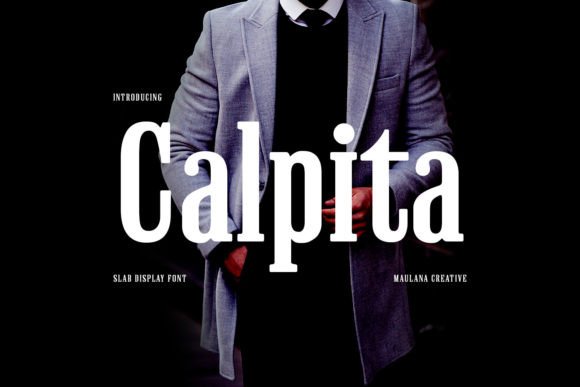
The Power of Calpita Font: Elevate Your Designs with Style
I’ll never forget the time I was working on a project for a trendy boutique hotel, and I just couldn’t find the right font to capture their edgy-chic vibe. The client wanted something that would make a statement, but still convey a sense of sophistication. That’s when I stumbled upon Calpita Font, and it completely transformed my design. With its striking, angular strokes and sharp edges, Calpita instantly added a level of depth and modernity to my project that I’d been struggling to achieve.
An Honest Review of Calpita Font
- ✨ Unique and distinctive style that’s sure to turn heads
- ✅ Perfect for making a statement in headlines, posters, and other graphic design projects
- 💥 Adds a sense of modernity and energy to any design
- 🎨 Highly versatile and can be used in a variety of creative projects
While Calpita Font is an amazing addition to any design project, there are a few things to keep in mind. 🤔 For example, the font’s bold style can be a bit overwhelming if not used judiciously. Additionally, some of the more intricate design elements may not render as well at smaller font sizes. ⚠️ However, these limitations are relatively minor and can be easily worked around with a little creativity.
The Backstory Behind Calpita Font
Calpita Font was designed with the modern designer in mind. Its creator, a talented typographer, wanted to craft a font that would be both stylish and attention-grabbing. Inspired by the urban landscape and the world of contemporary art, Calpita Font was born. With its bold, angular strokes and sharp edges, it’s the perfect choice for designers who want to make a statement.
Q: What type of projects is Calpita Font best suited for?
A: Calpita Font is perfect for making a statement in headlines, posters, and other graphic design projects. It’s highly versatile and can be used in a variety of creative projects.
Q: Is Calpita Font easy to read?
A: While Calpita Font is a bold and attention-grabbing font, it can be a bit challenging to read at smaller font sizes. However, at larger sizes, it’s highly legible and perfect for making a statement.